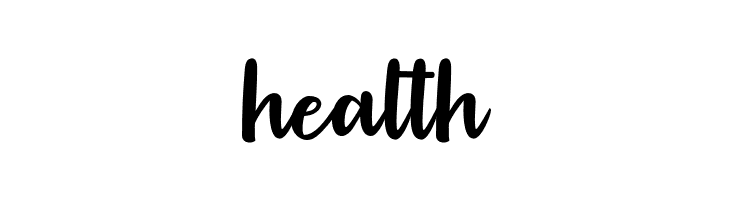
A charming and elegant handwritten font with fluid curves.
An elegant script font with flowing, interconnected letters and high contrast strokes.
A bold, dynamic script font with fluid, cursive strokes and elegant swashes.
A playful and expressive handwritten font with bold, slanted characters.
A dynamic and elegant script font with fluid, cursive strokes.
An elegant script font with flowing, cursive letterforms and graceful curves.
An elegant script font with fluid, cursive strokes and refined flourishes.
A bold, flowing script font with elegant, interconnected characters.
A bold, dynamic brush script font with sweeping strokes and fluid motion.